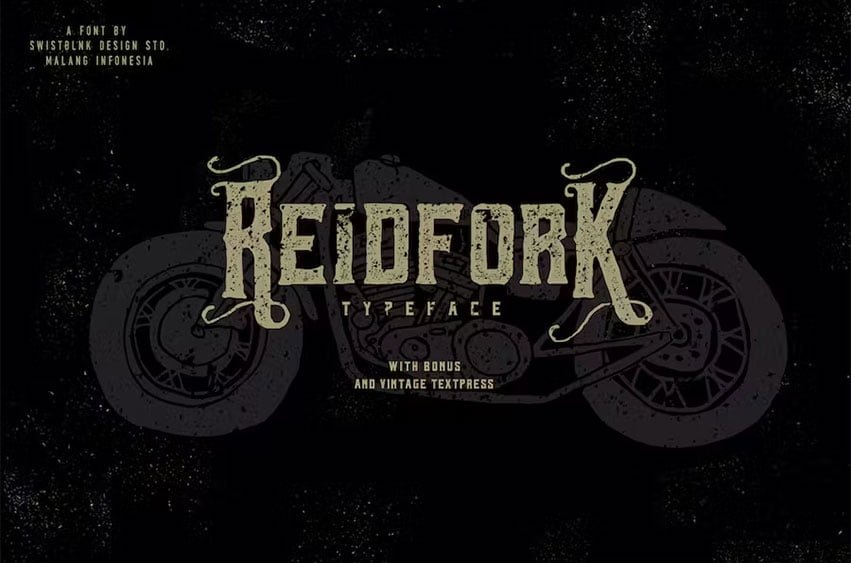
Reidfork Font Typeface with Bonus Vector and Vintage Textpress. Reidfork Typeface is another carefully hand-made font crafted with passion and love. You can use this font as creative as you want. Just imagine and touch the sky. With bonus vector pack from our Vintage Hand Drawn Style Logos And Badges.